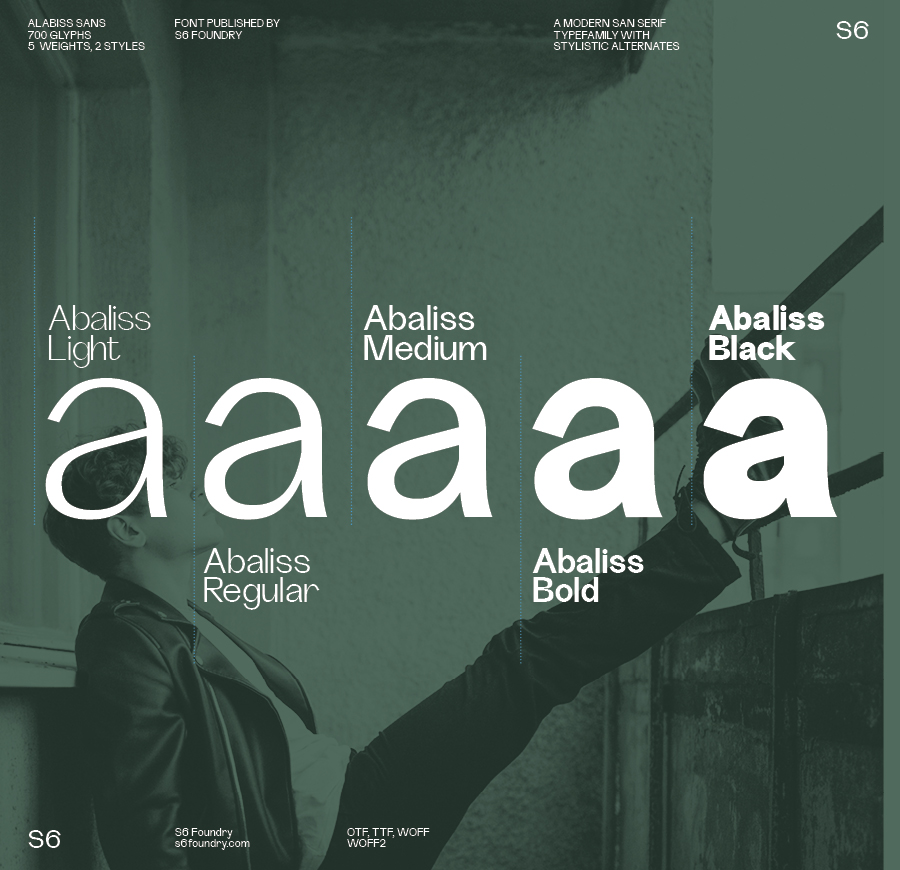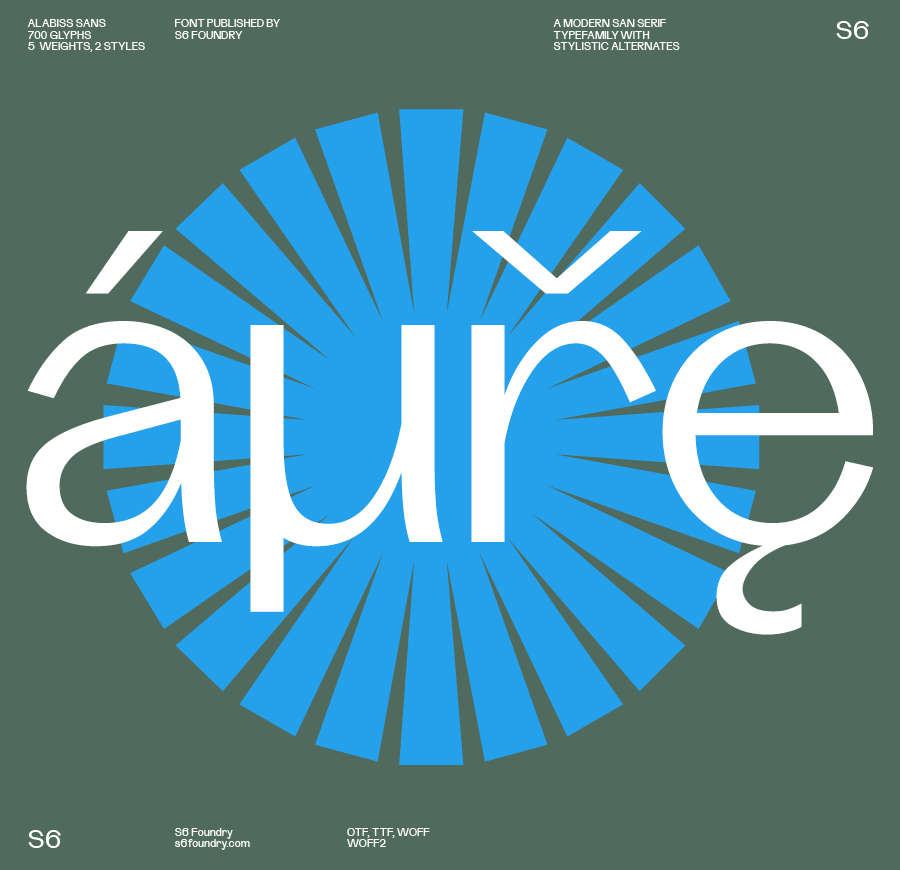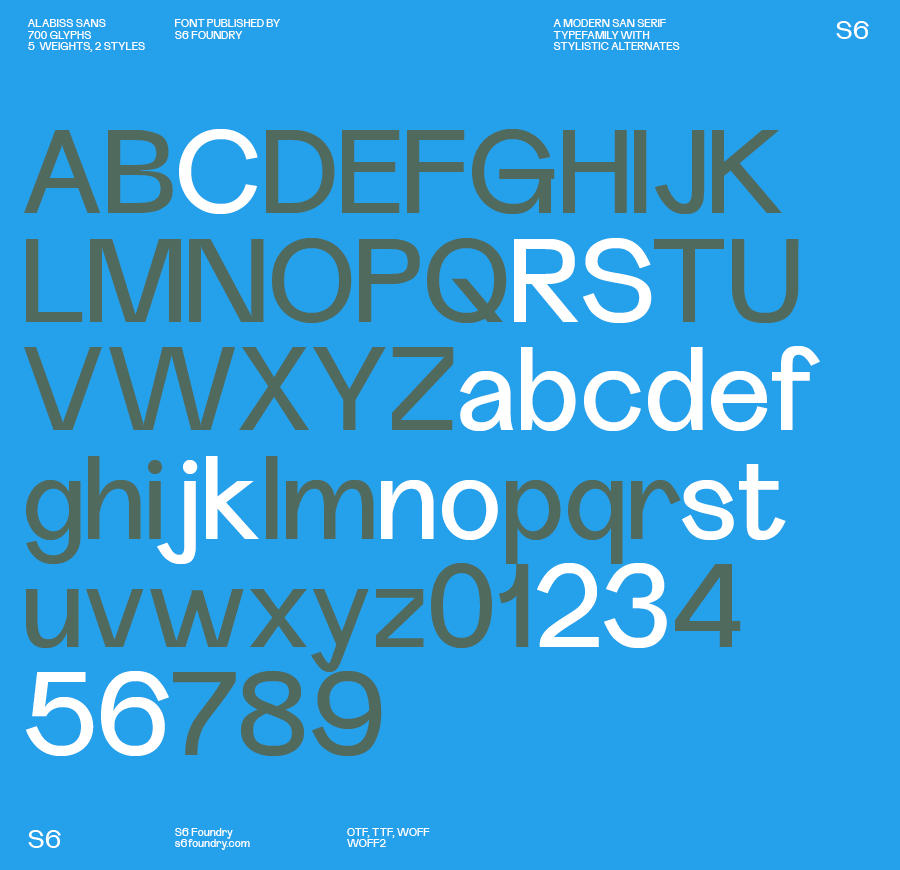
Sf Abaliss Sans
Abaliss Sans is a contemporary typeface family based on the Swiss style with strong stylistic geometric contrasts representing the shifting contemporary aesthetics. Its distinctive stance and wide-open counters allow the right visual consistency for branding and communications projects.
Abaliss Sans supports up to 87 different languages such as English, German, French, Turkish, Polish, Kurdish (Latin), Azerbaijani (Latin), Romanian, Dutch, Hungarian, Kazakh (Latin), Serbian (Latin), Czech, Swedish, Belarusian (Latin), Croatian, Slovak, Finnish, Danish, Lithuanian, Latvian, Slovenian, Irish, Estonian, Basque, Luxembourgian, Icelandic, and Vietnamese in Latin and other scripts.